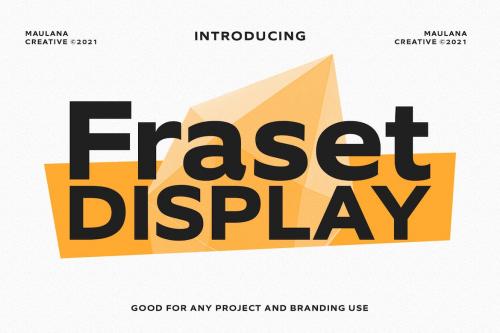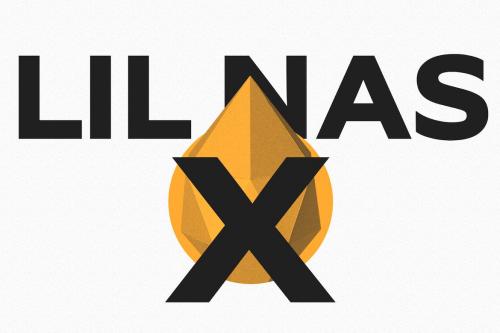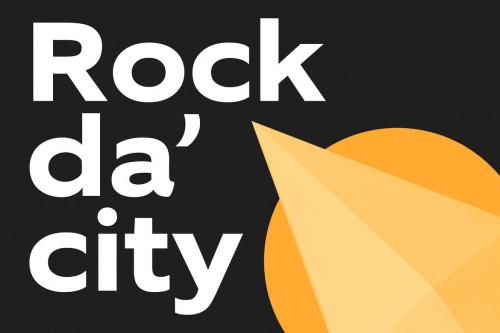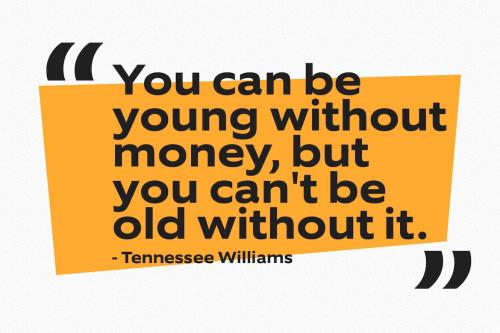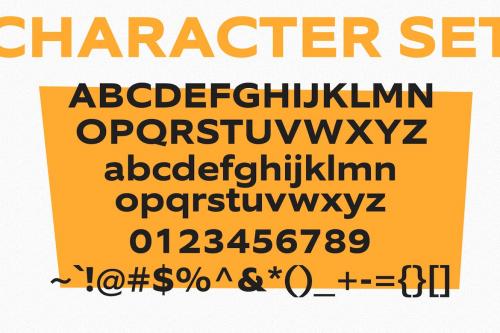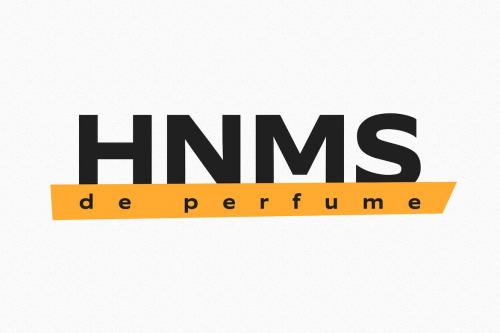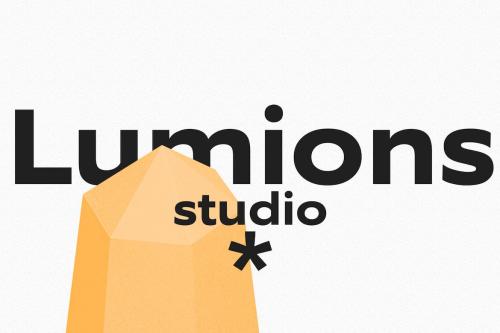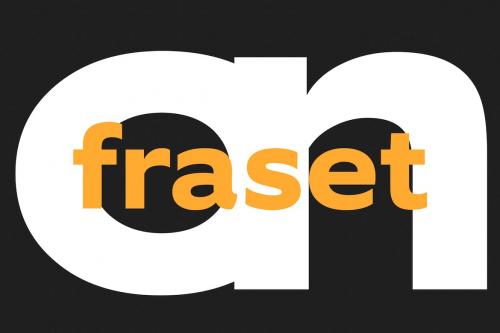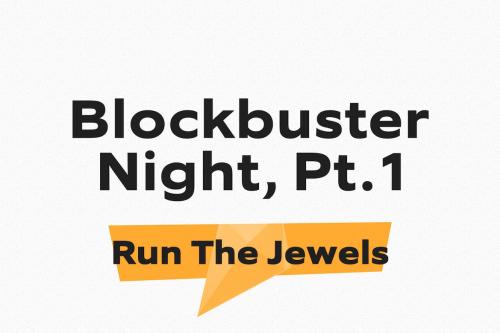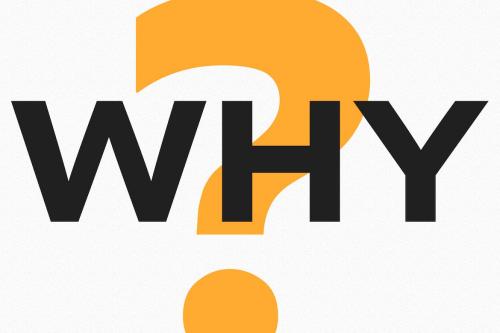
Fraset Sans Serif Display Font
Fraset Display is a modern sans serif display font. With bold stroke, fun character with some of ligatures. To give you an extra creative work. Fraset Display font support multilingual more than 100+ language. This font is good for logo design, Social media, Movie Titles, Books Titles, a short text even a long text letter and good for your secondary text font with script or signature typeface. Make a stunning work with Fraset Display font.